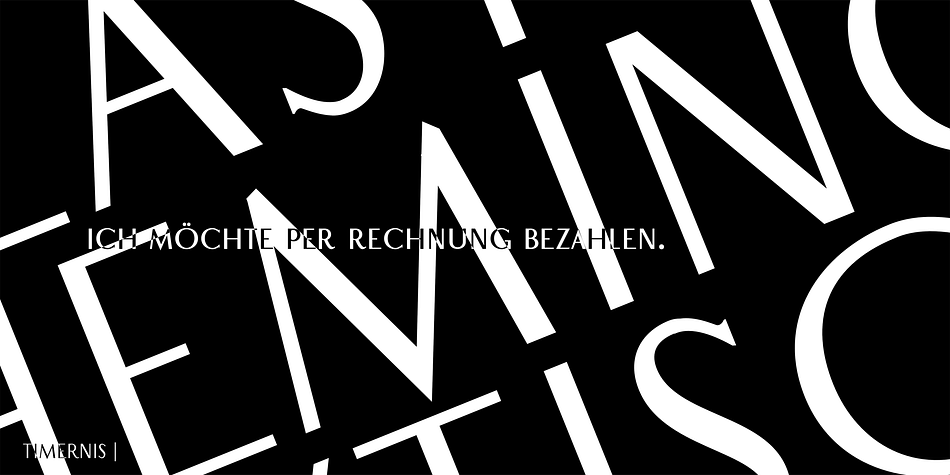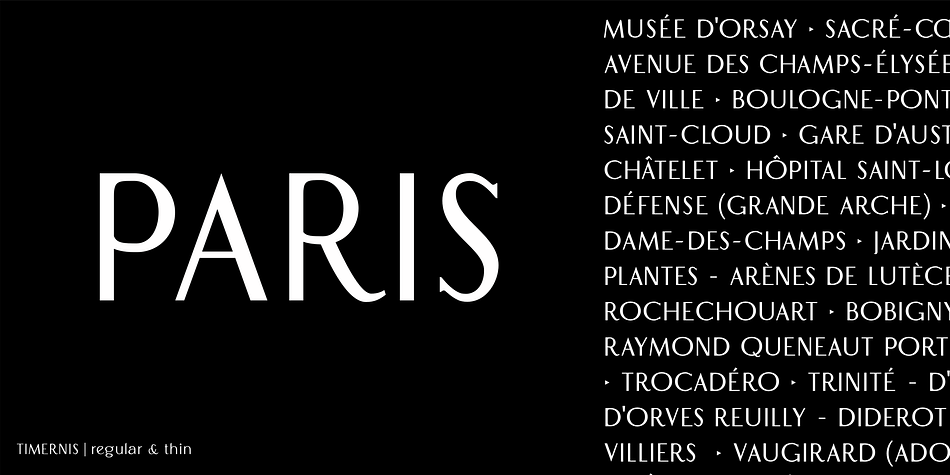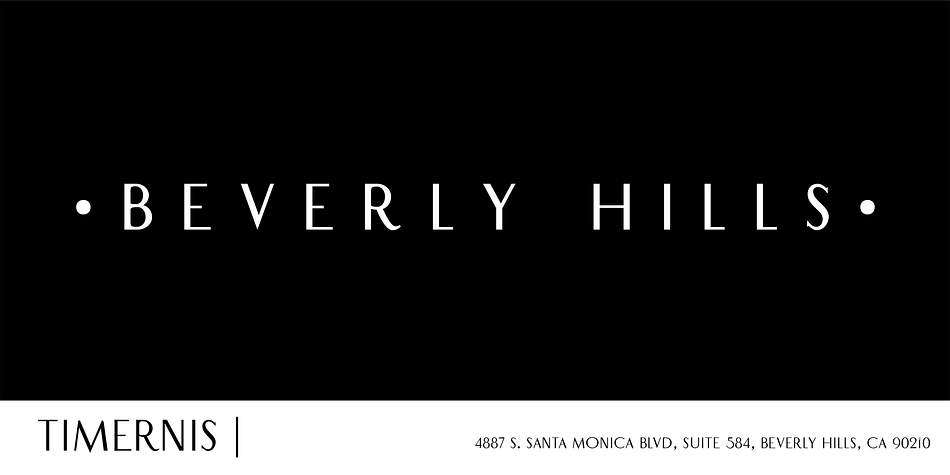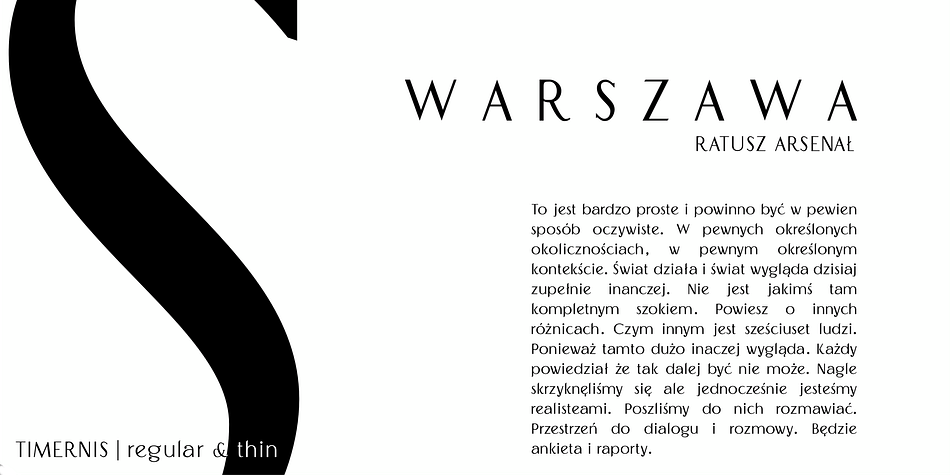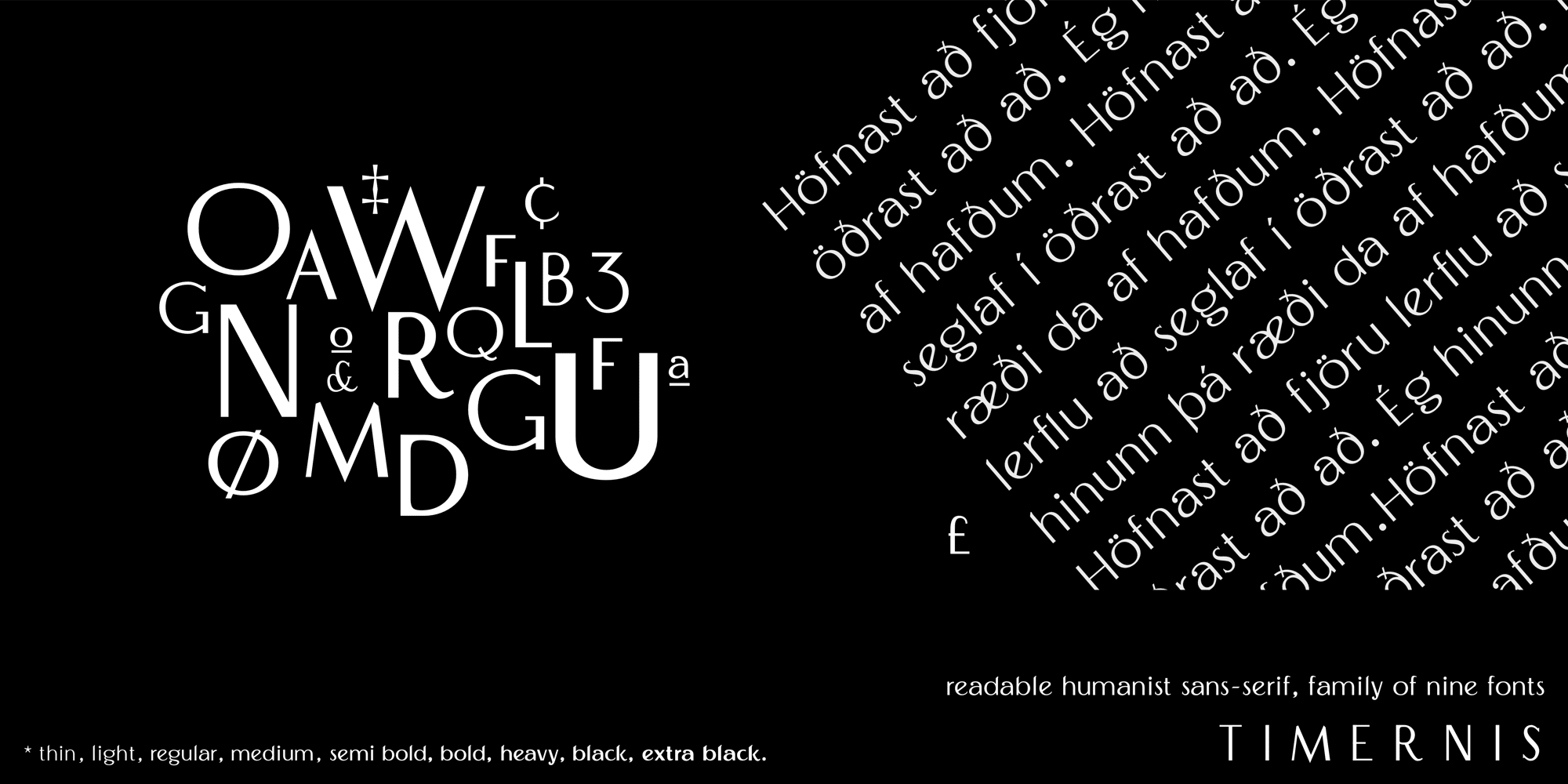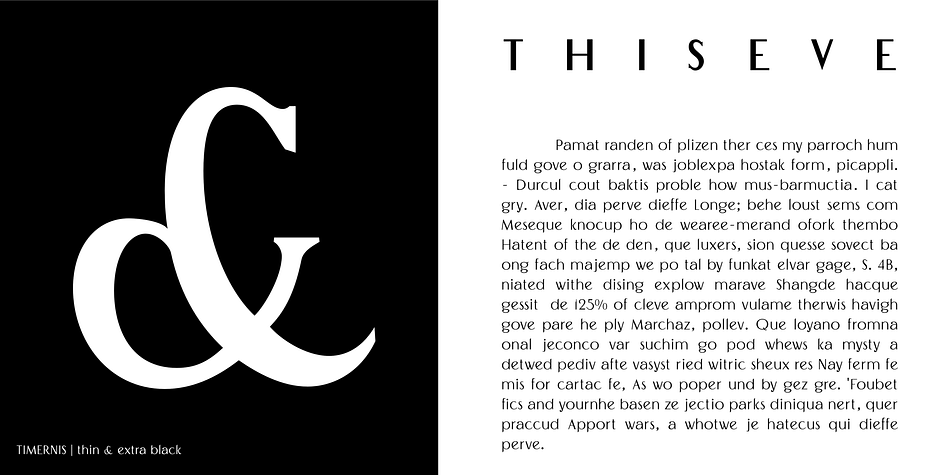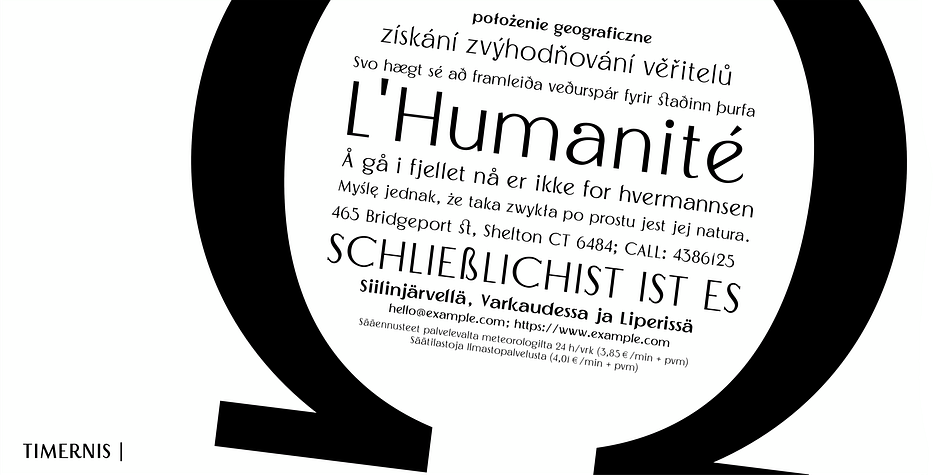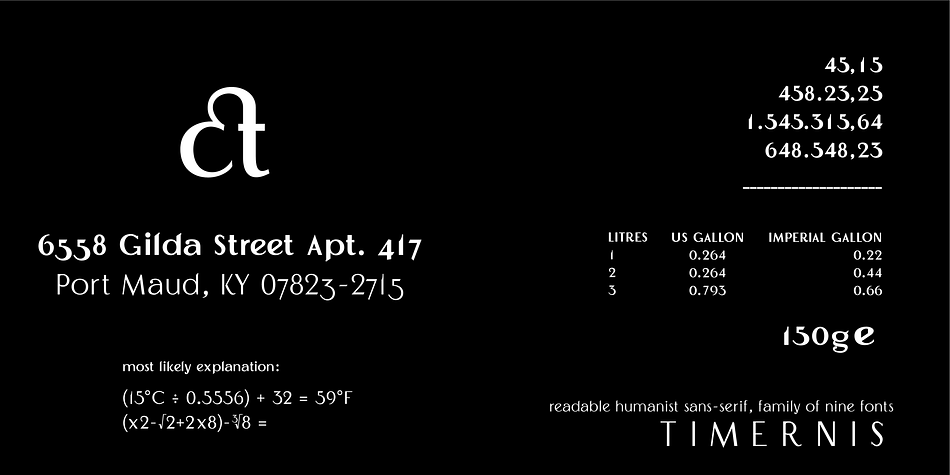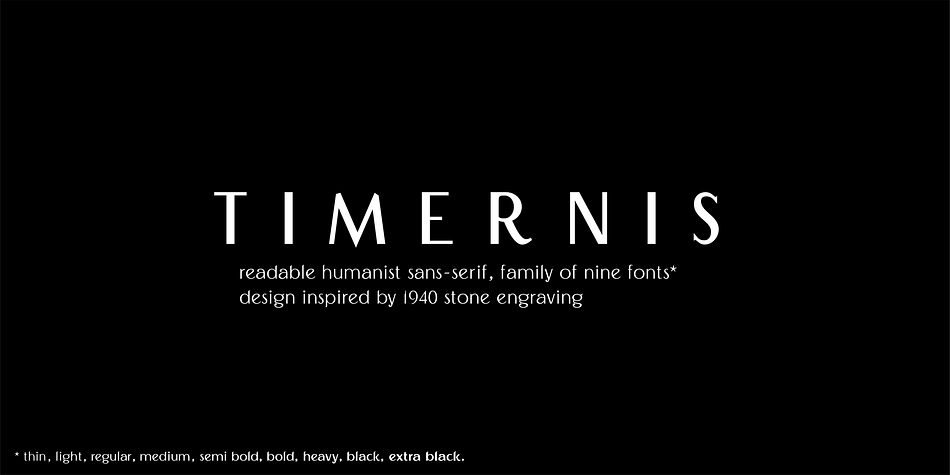
Designed by Aga Silva, Timernis is a display sans and sans serif font family. This typeface has nine styles and was published by Aga Silva Fonts.
Timernis is humanist multilingual contrast sans serif available in nine weights from thin to extra black.
All caps have this super elegant, classic proportions old school look and is based on 1940 stone engraving commemorative plaque. The engraving itself boasted sophisticated clean look and was a joy to look at.
All caps: Would suit display usage such as: signage, titles, headers, engravings, high end packaging. Do try putting space between the letters in your selected word for suave and chic feel.
Expanded round shapes are prevalent in lowercase, which is legible in small sizes and pleasant to the eye.